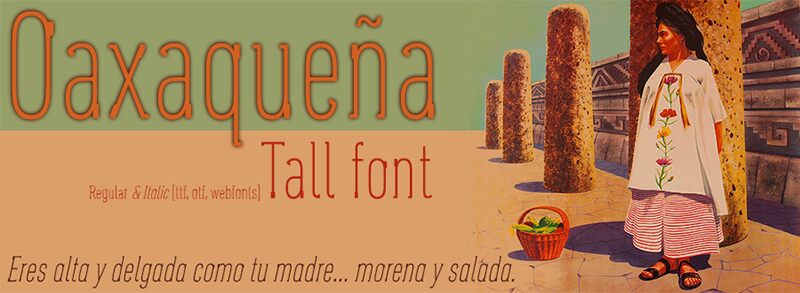
Oaxaqueña Tall
Oaxaqueña Tall is a distinctly elegant and stylized font that exudes a captivating blend of tradition and modernity. Designed by Fernando Haro, this light, condensed typeface boasts a captivating vertical emphasis that adds a unique flair to any text. Its refined curves and subtle flourishes evoke a sense of refined sophistication, making it an ideal choice for editorial designs, branding applications, and even intriguing typographic experiments.
Oaxaqueña Tall's versatility and visual appeal make it a compelling option for designers seeking to craft distinctive, visually arresting projects that command attention.
Extra fine and extra condensed typeface, topped with small vertical serifs with a rounded finish. May 2013.
The name of the typeface pays tribute to the Mexican woman from the state of Oaxaca (multicultural example where more than 15 indigenous ethnic groups coexist) Eeeres tall and thin like your mother, brown and healthy!